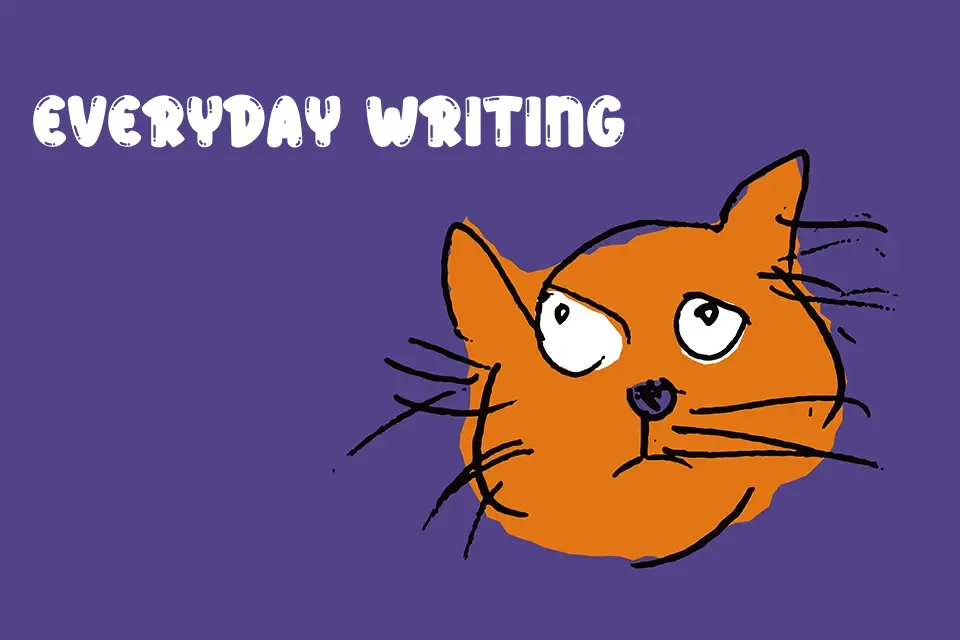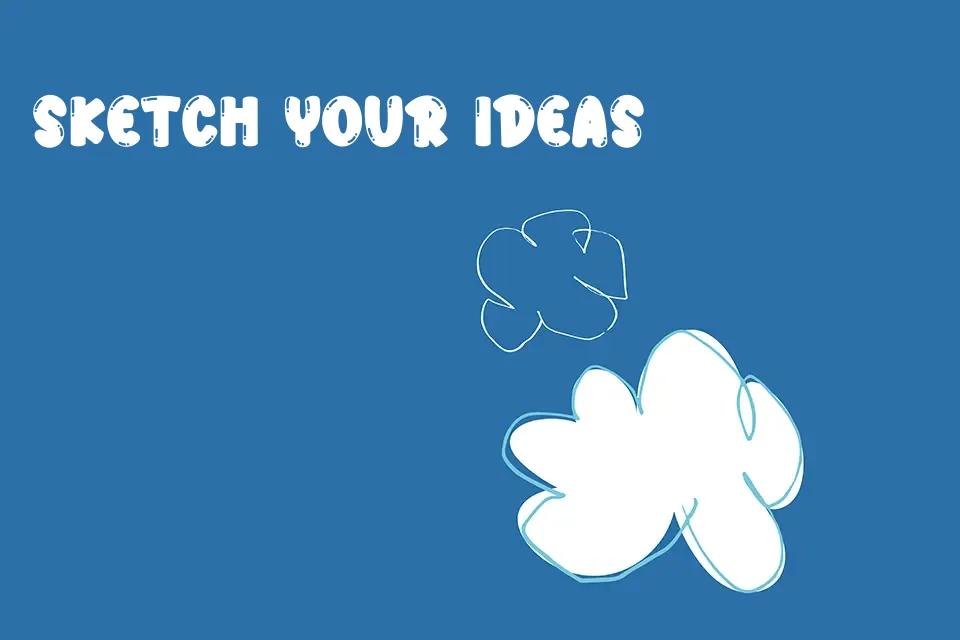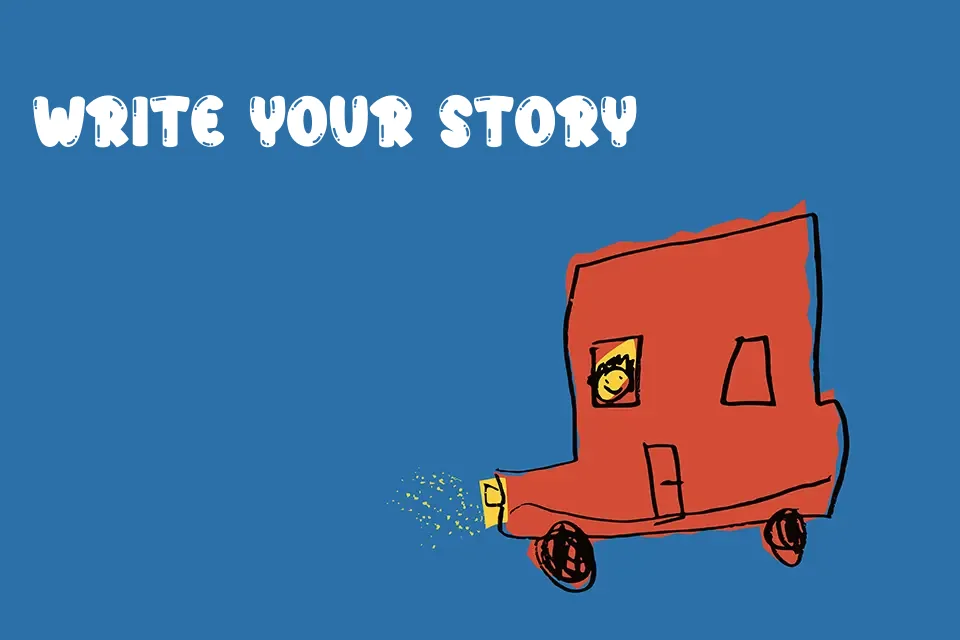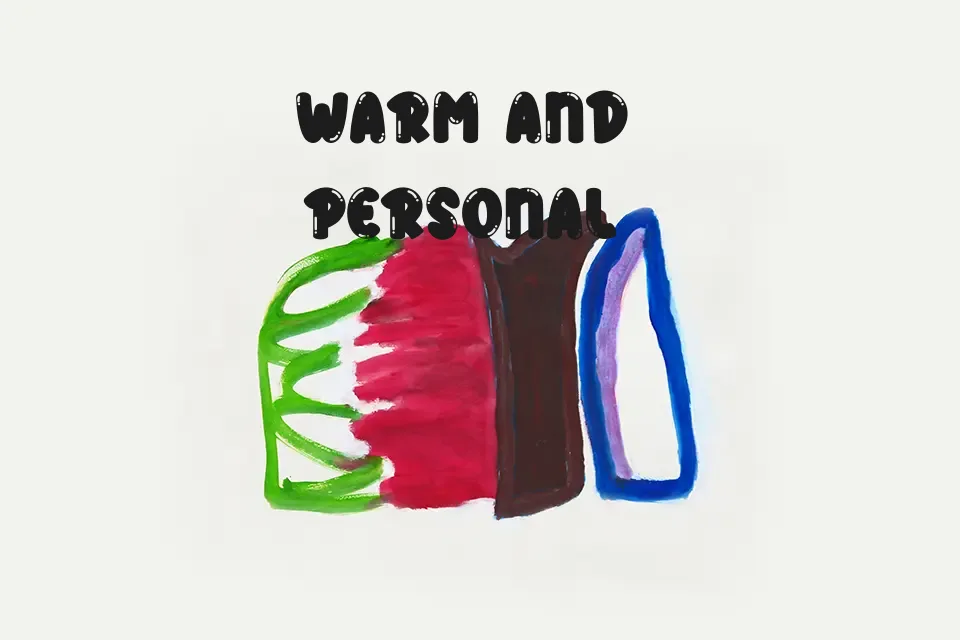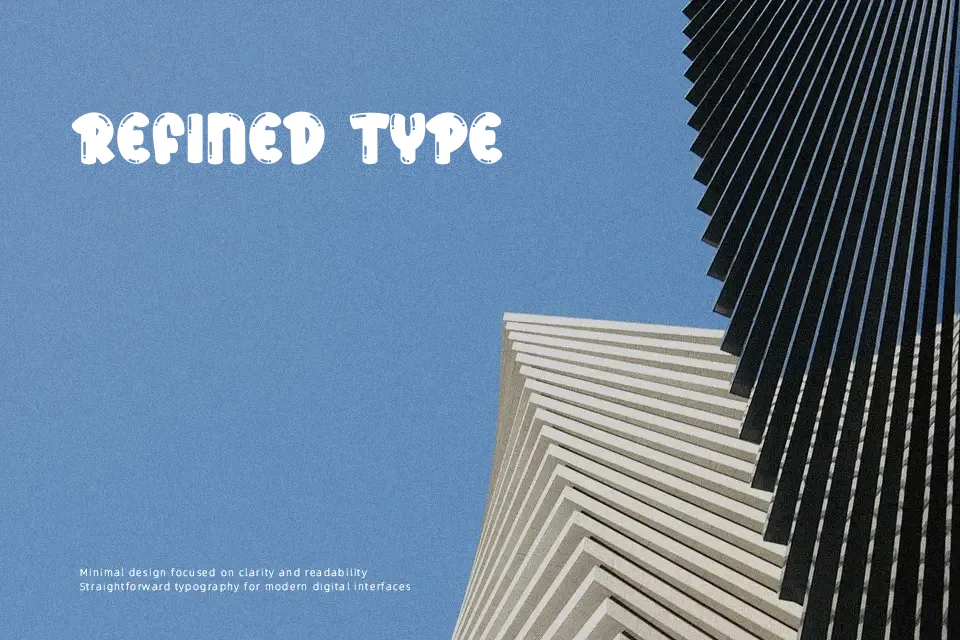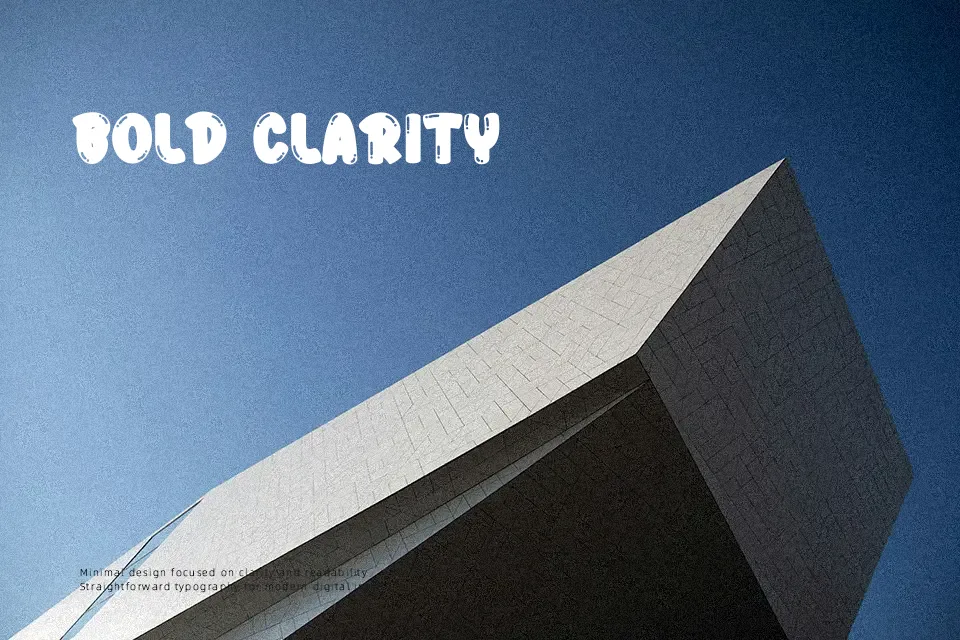
Soap Bubble Font
Designed by Andi Moz
Soap Bubble Font uses rounded, handwritten-style letterforms with smooth, full strokes and a deliberately informal silhouette. The proportions appear broad and soft, giving short words a loose, approachable rhythm rather than a rigid text setting. It works most effectively for cards, invitation headings, children’s graphics, and large social posts where its personality can remain visible. The generous curved forms help maintain clarity in larger display text. At smaller sizes or in long passages, however, the playful construction can slow reading and make dense layouts feel less controlled.
Best For: children’s birthday invitations,greeting card titles,playful poster headlines,social media graphics
Not Ideal For: long paragraph text,legal documents,small interface labels,dense editorial layouts
Perfect for invitation, kids, and poster, with a cute and display style.